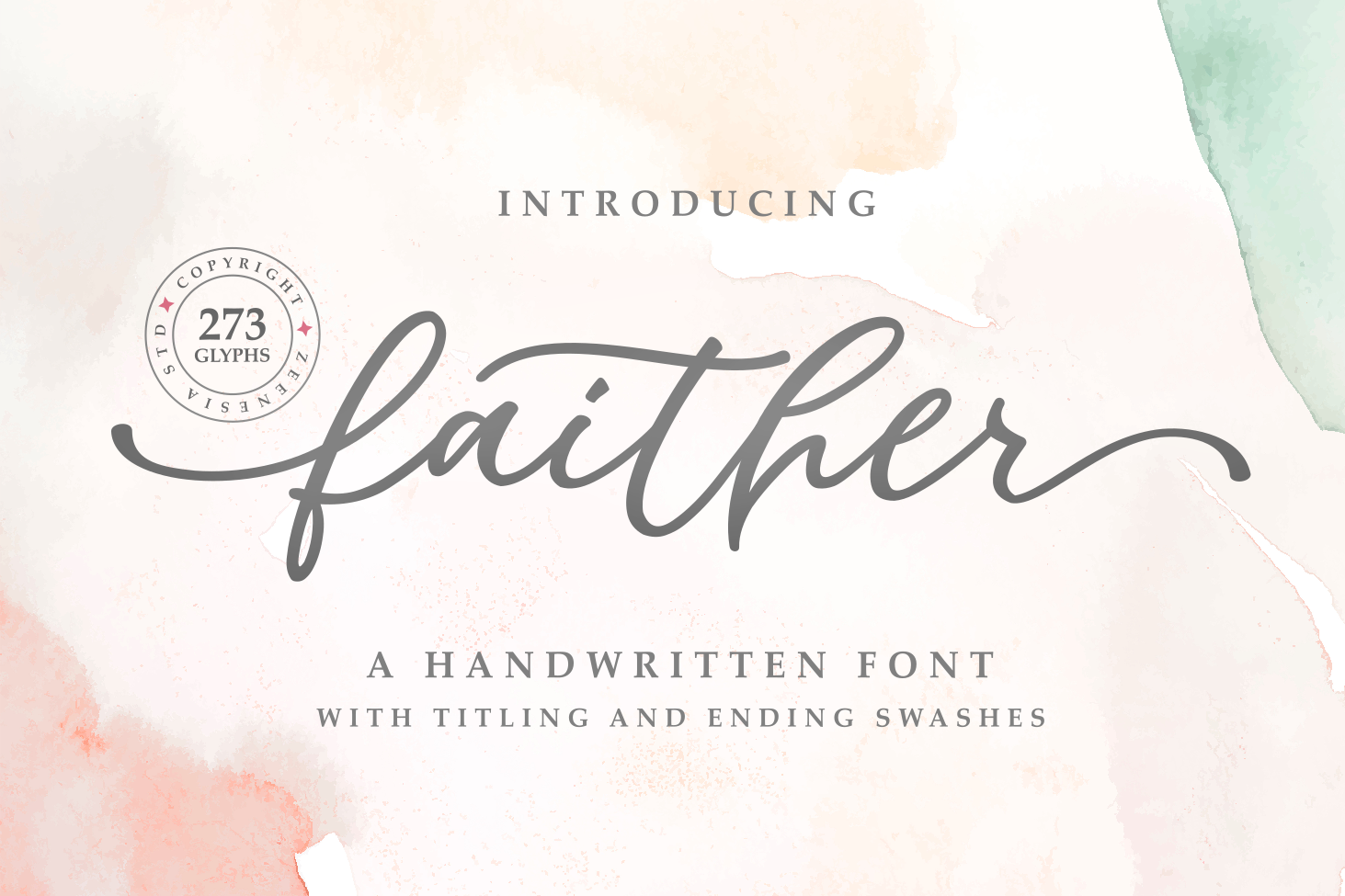
Faither | A Handwritten Font
Introducing Faither Handwritten
Faither is a thin lettered and graceful script font. Fall for its ravishing style and use it to create gorgeous wedding invitations, beautiful stationary art, eye-catching social media posts, and much more! Natalie is PUA encoded which means you can access all glyphs and swashes with ease!